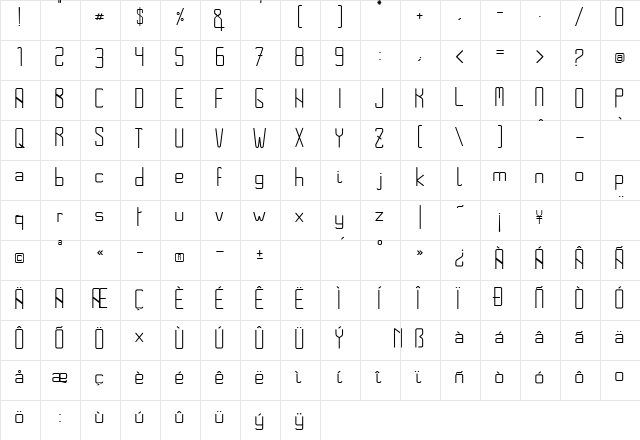
NOROESTE Regular
| Designer | ALBERTO VARELA FERREIRO |
Design Context for NOROESTE Typeface
NOROESTE takes a measured approach to typography — its balanced proportions and neutral character make it a reliable workhorse for both digital and print work.